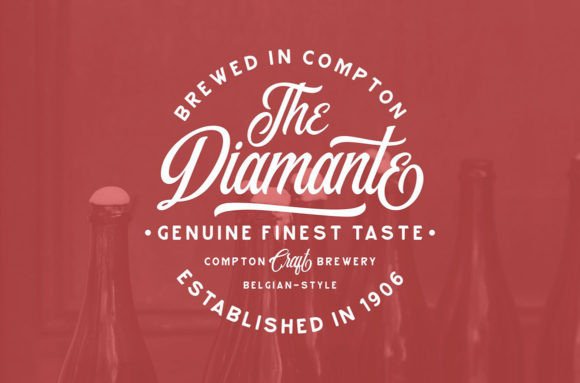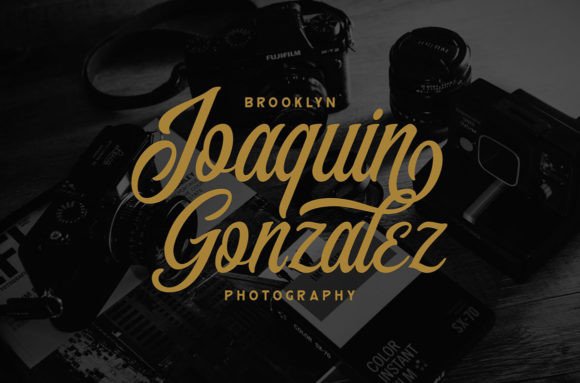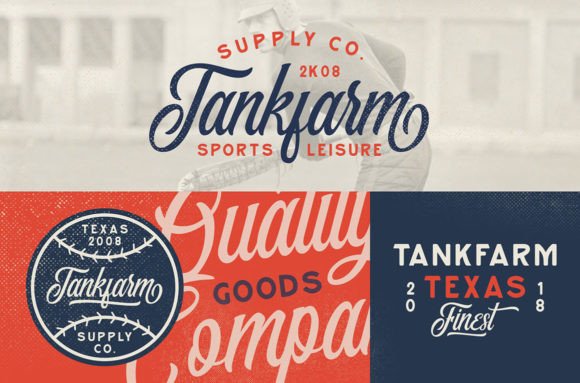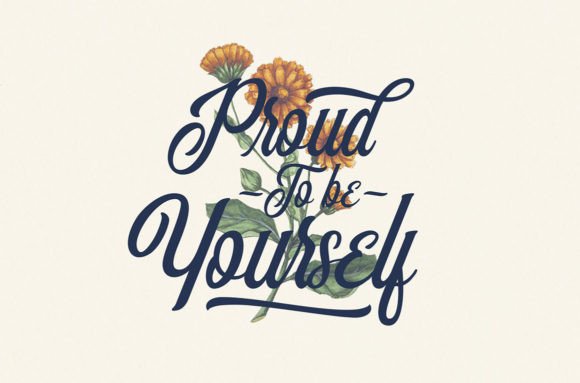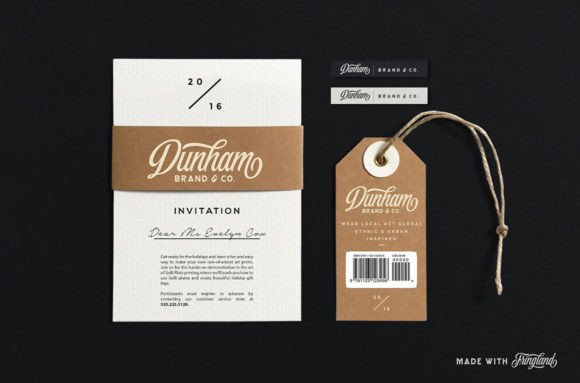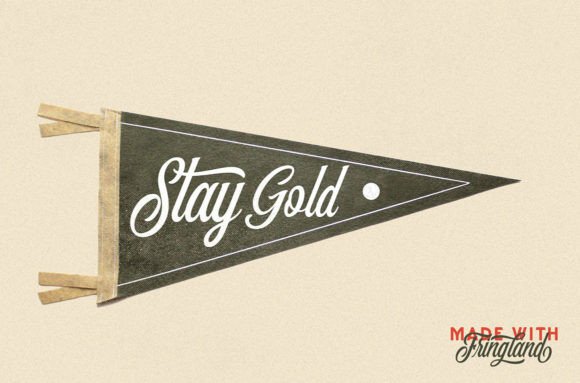
Fringland Font: A Commanding Script Font for Impactful Designs
In the world of typography, fonts play a crucial role in conveying messages, evoking emotions, and creating lasting impressions. For designers and crafters looking to make a statement, Fringland Font is an exceptional choice. This commanding script font exudes a tremendous presence, featuring bold and powerful strokes that demand attention. In this article, we’ll dive into the features, benefits, and uses of Fringland Font, and explore why it’s perfect for creating striking headlines, bold branding materials, and attention-grabbing social media graphics.
The Power of Fringland Font
Fringland Font is a masterfully crafted script font that boasts strong, cursive letters perfectly balanced to create a harmonious and impactful design. The bold strokes and confident lines of this font make it an ideal choice for designers who want to create a lasting impression. Whether you’re working on a branding project, social media graphics, or marketing materials, Fringland Font is sure to turn heads.
Key Features of Fringland Font
- Bold and Powerful Strokes: Fringland Font features bold and powerful strokes that demand attention and create a lasting impression.
- Perfectly Balanced Letters: The strong, cursive letters are perfectly balanced, creating a harmonious and impactful design.
- Commanding Presence: This font exudes a tremendous presence, making it perfect for creating striking headlines and bold branding materials.
- Versatility: Fringland Font is versatile and can be used for a wide range of design projects, from social media graphics to marketing materials.
Uses of Fringland Font
Fringland Font is an incredibly versatile font that can be used for a wide range of design projects. Here are some of the most popular uses of this font:
- Headlines and Titles: Fringland Font is perfect for creating striking headlines and titles that demand attention.
- Branding Materials: This font is ideal for creating bold branding materials, such as logos, business cards, and brochures.
- Social Media Graphics: Fringland Font can be used to create attention-grabbing social media graphics, such as Facebook posts, Instagram stories, and Twitter headers.
- Marketing Materials: This font is perfect for creating marketing materials, such as flyers, posters, and billboards.
Benefits of Using Fringland Font
Using Fringland Font offers a range of benefits for designers and crafters. Here are some of the most significant advantages of this font:
- Instant Recognition: Fringland Font’s bold and powerful strokes create instant recognition and grab attention.
- Professional Look: This font gives your designs a professional look and feel, making it perfect for businesses and brands.
- Emotional Connection: Fringland Font’s commanding presence creates an emotional connection with your audience, making your message more impactful.
- Time-Saving: This font is easy to use and saves time, as it eliminates the need to create custom typography.
Tips for Using Fringland Font
To get the most out of Fringland Font, here are some tips to keep in mind:
- Use it Sparingly: Use Fringland Font sparingly to create emphasis and avoid overwhelming your design.
- Pair it with Other Fonts: Pair Fringland Font with other fonts to create contrast and add visual interest.
- Keep it Simple: Keep your design simple and clean to let Fringland Font shine.
Fringland Font is a commanding script font that exudes a tremendous presence, featuring bold and powerful strokes that demand attention. With its perfectly balanced letters and harmonious design, this font is perfect for creating striking headlines, bold branding materials, and attention-grabbing social media graphics. By understanding the features, benefits, and uses of Fringland Font, designers and crafters can create impactful designs that leave a lasting impression.